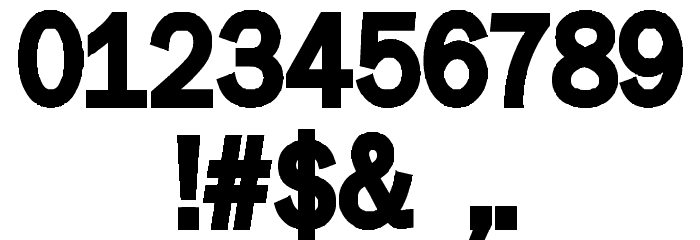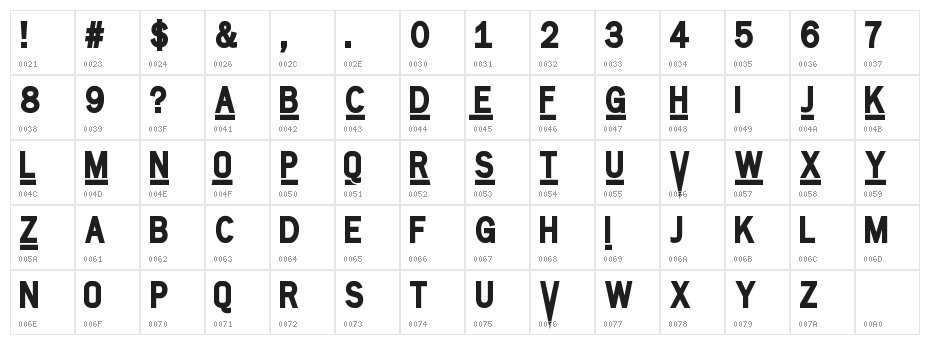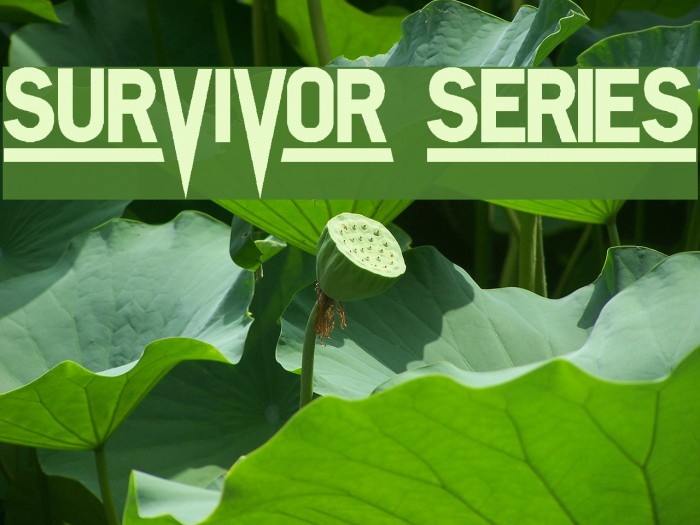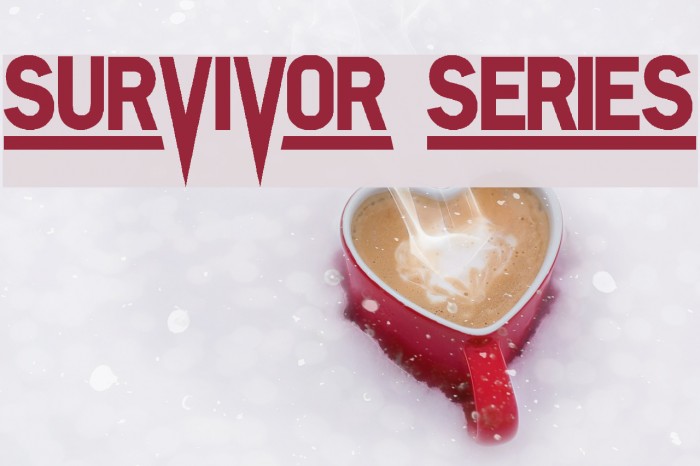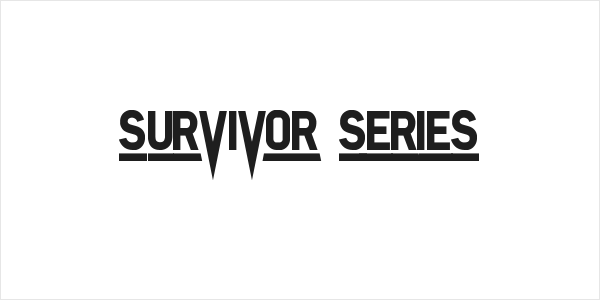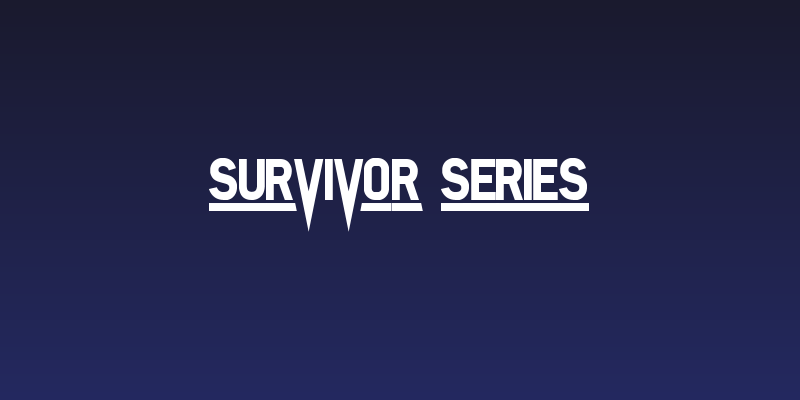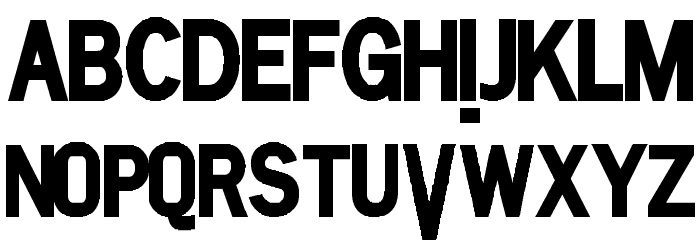
SURVIVOR SERIES Font
SURVIVOR SERIES Description
This font features bold, uppercase letters with a strong and impactful presence. The characters are designed with a uniform stroke width, giving them a robust and solid appearance. The font is highly legible, making it suitable for attention-grabbing headlines and titles. Its geometric structure and clean lines contribute to a modern and professional look. The numbers and special characters maintain the same boldness and clarity, ensuring consistency across all text elements. The overall style is assertive and confident, ideal for projects that require a commanding visual impact.